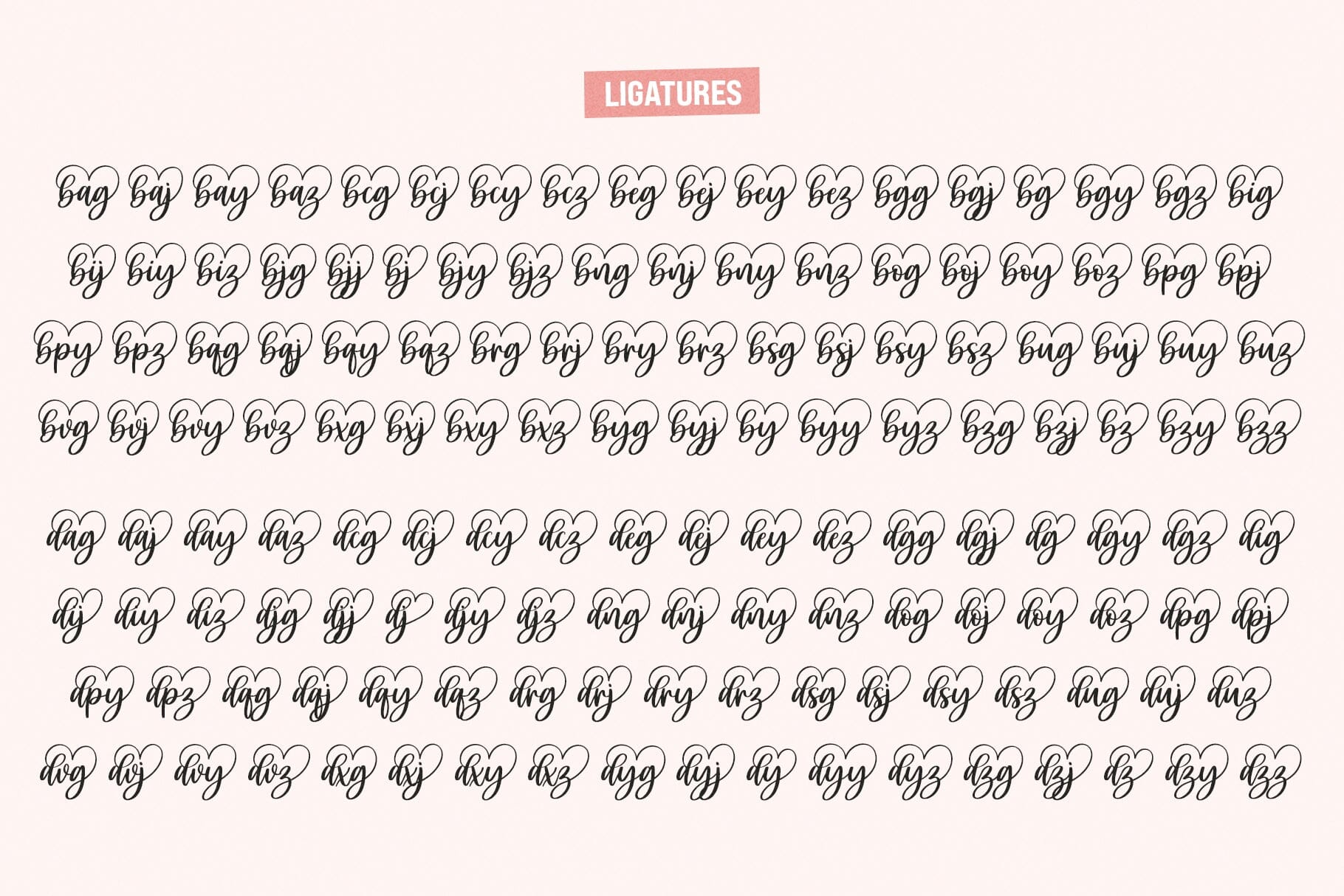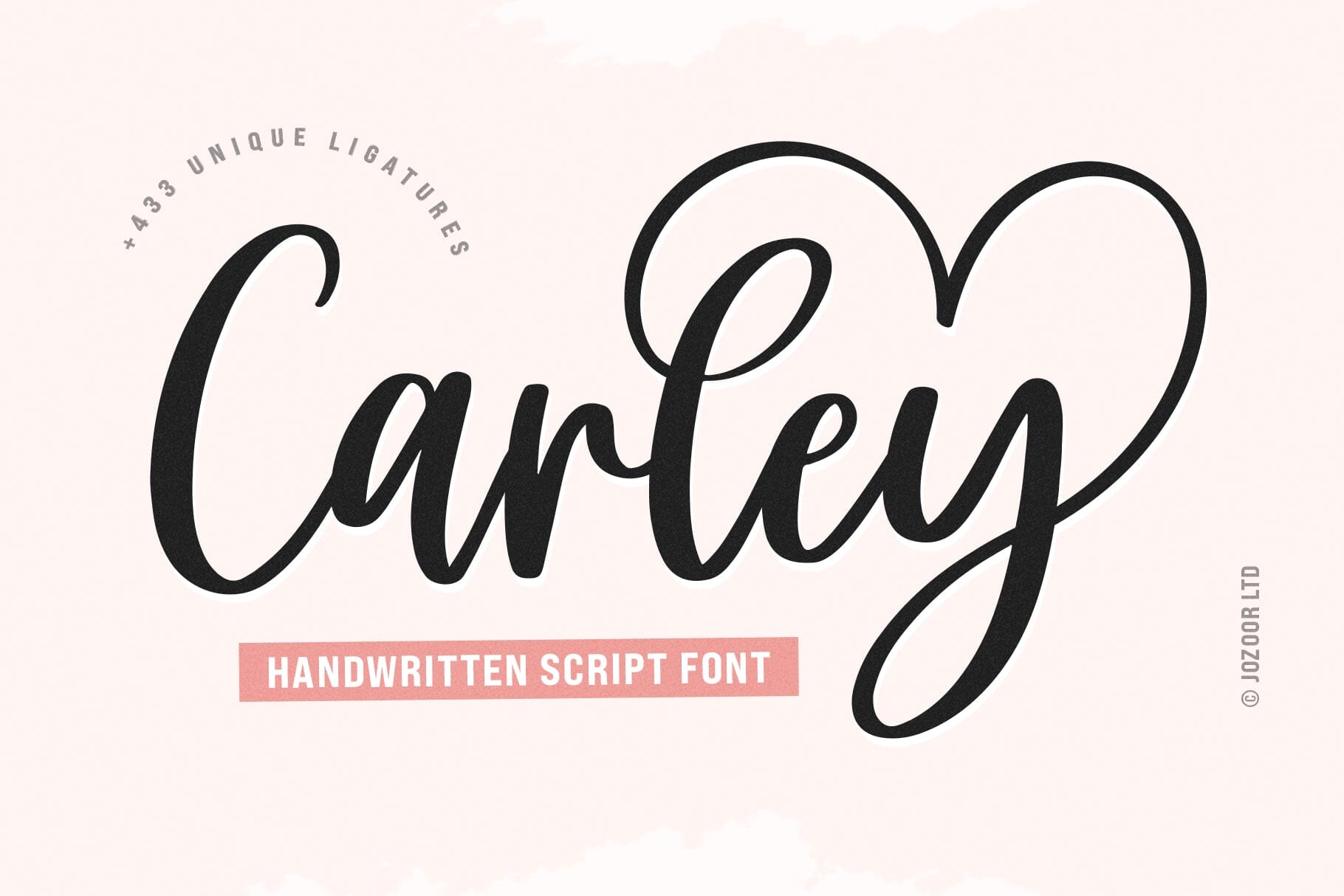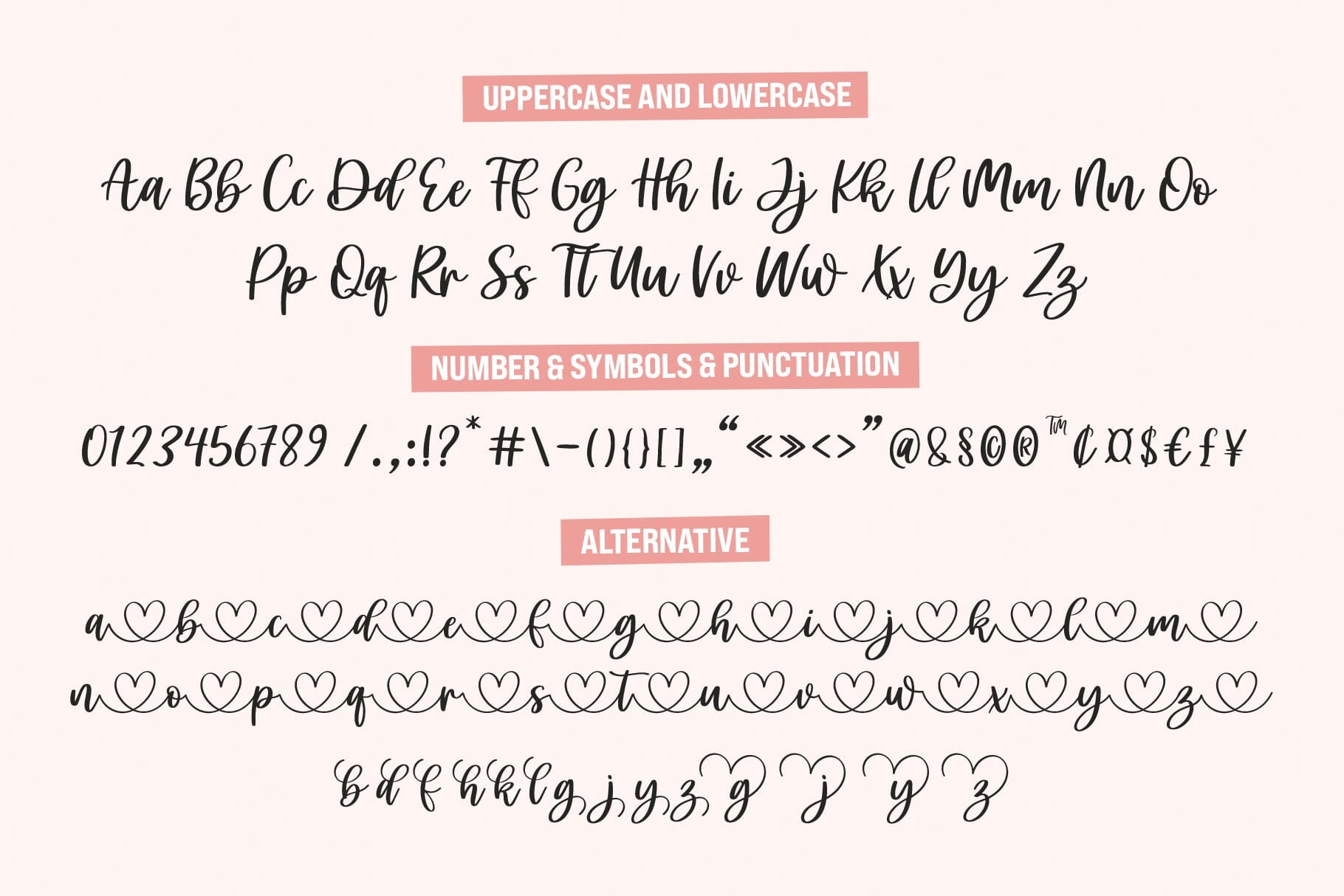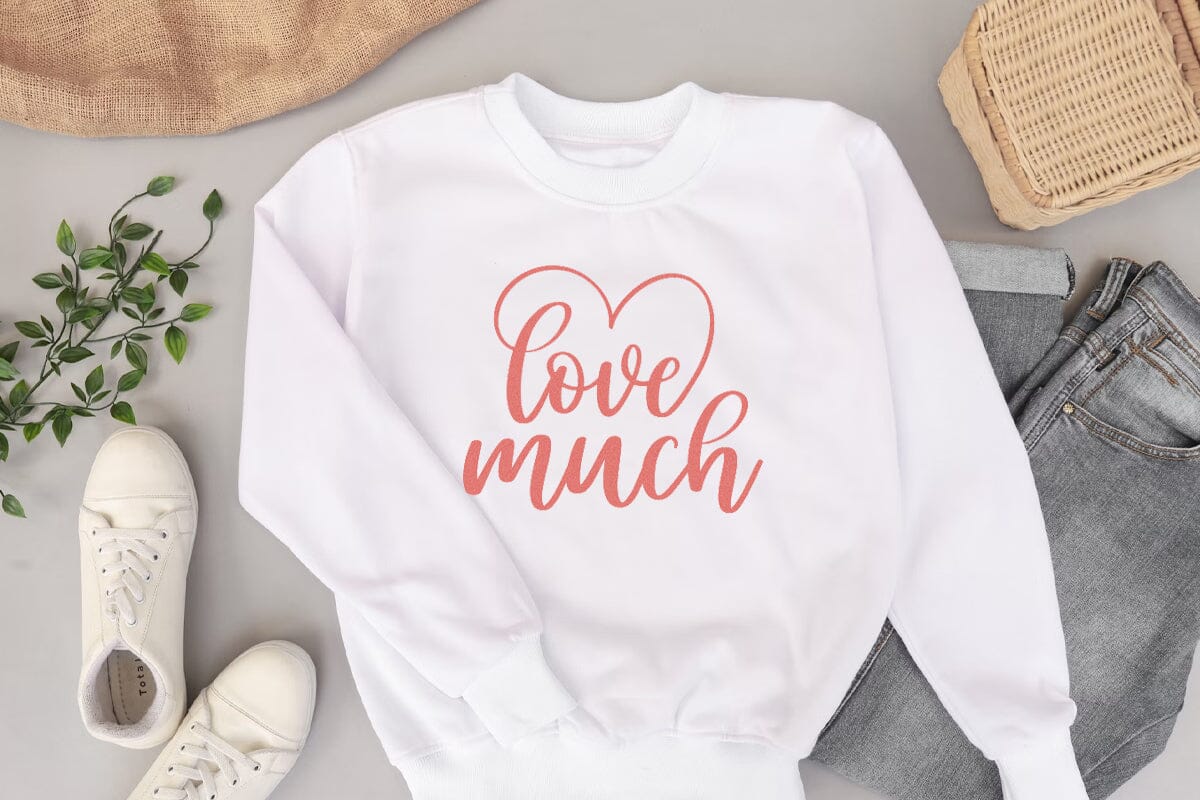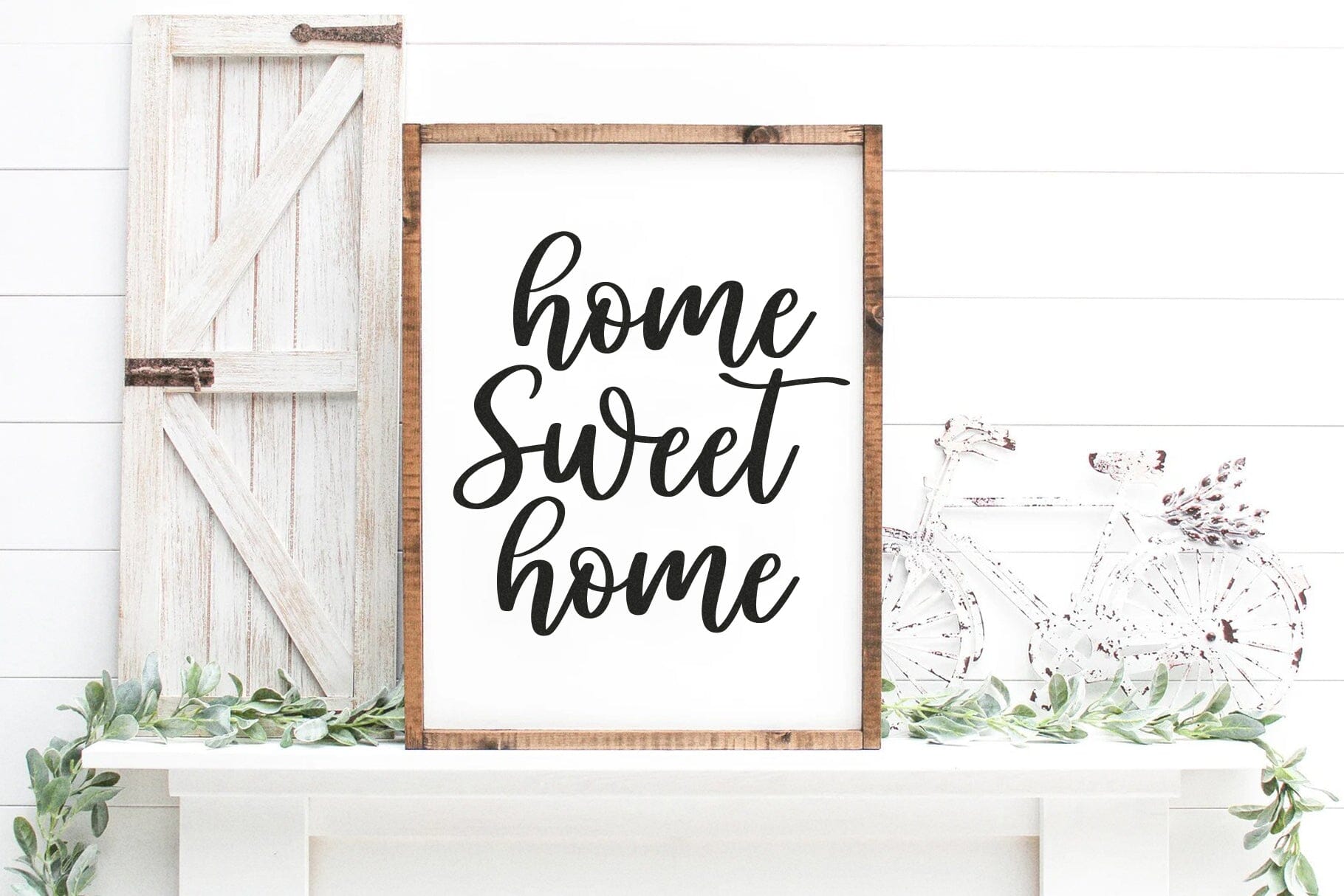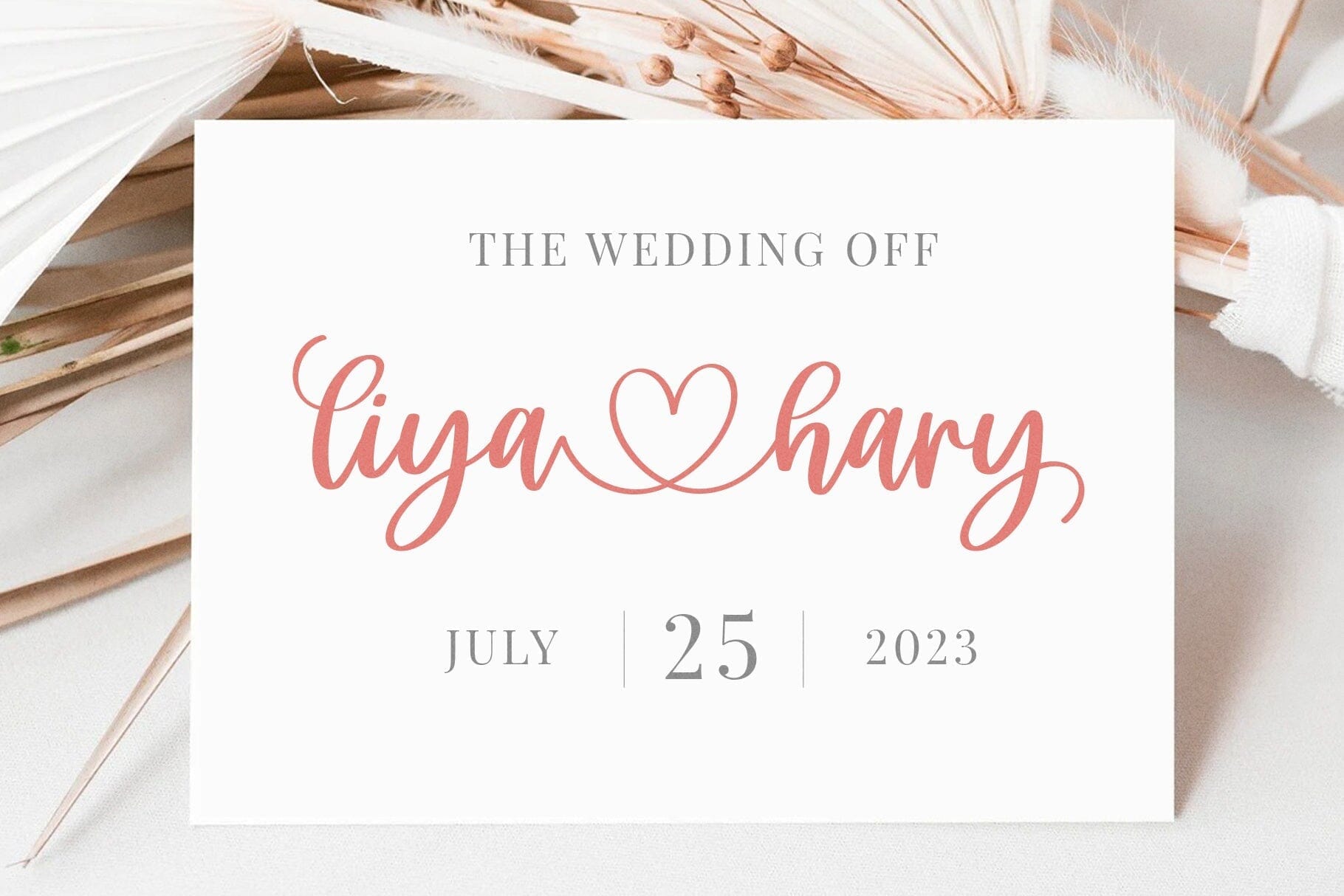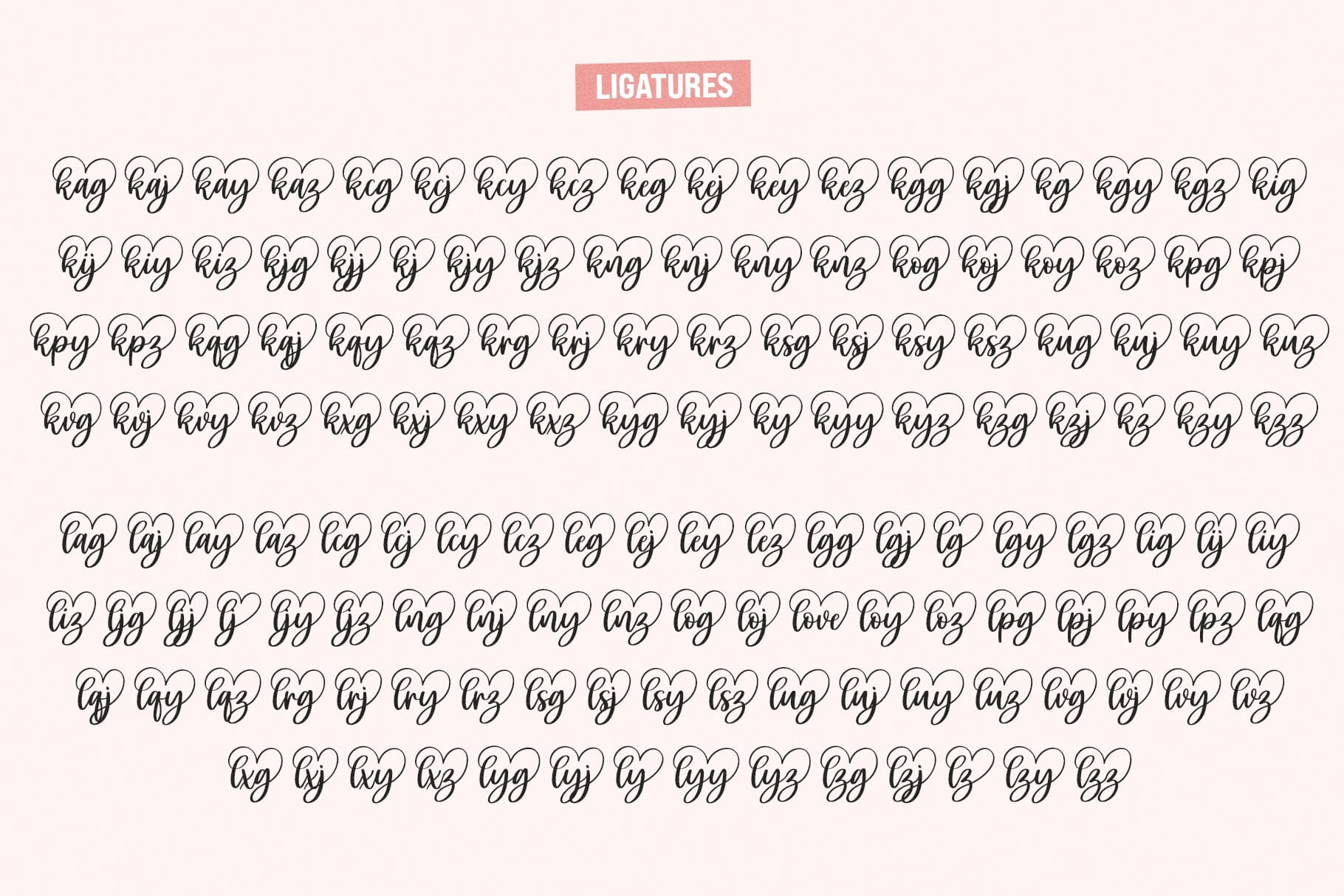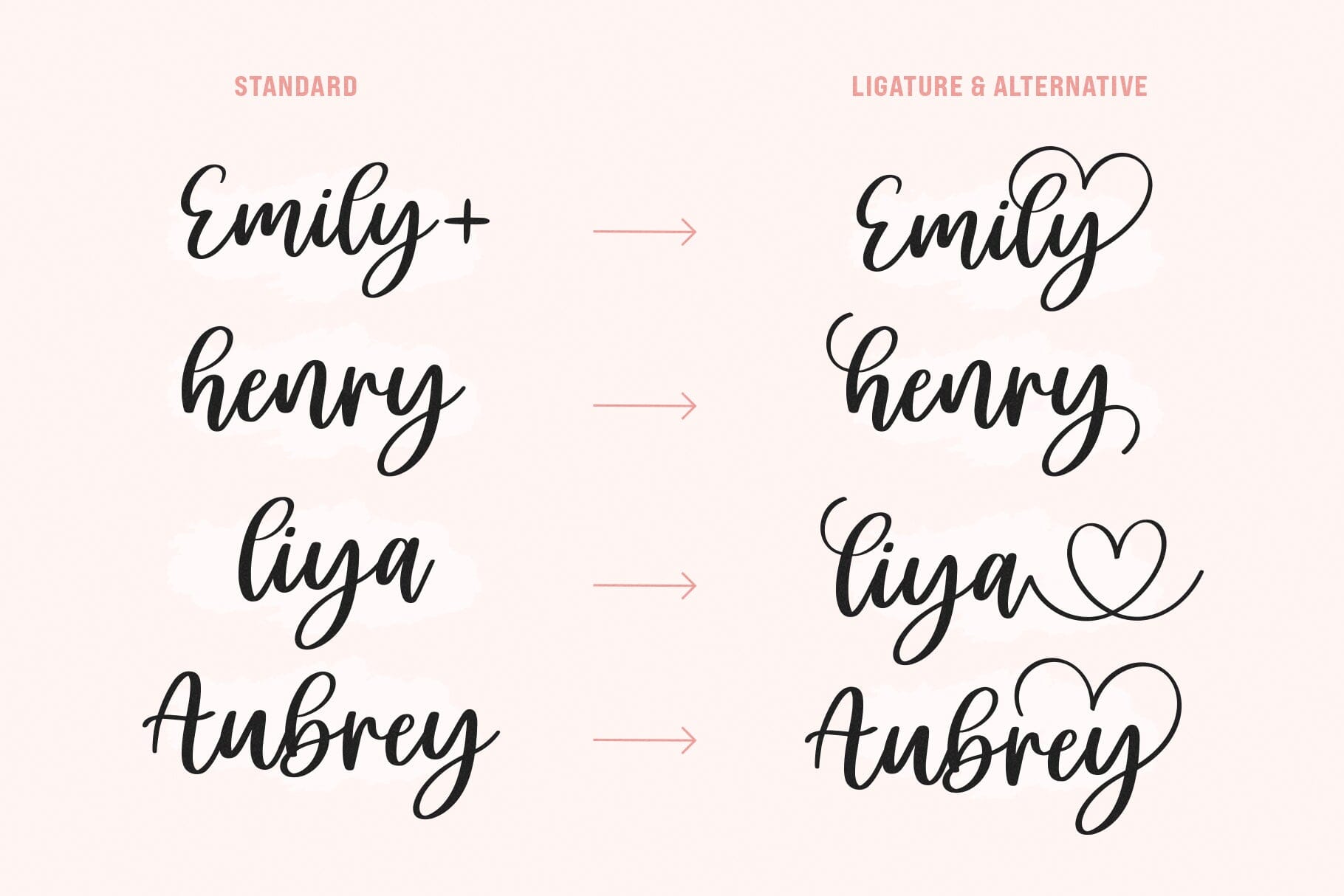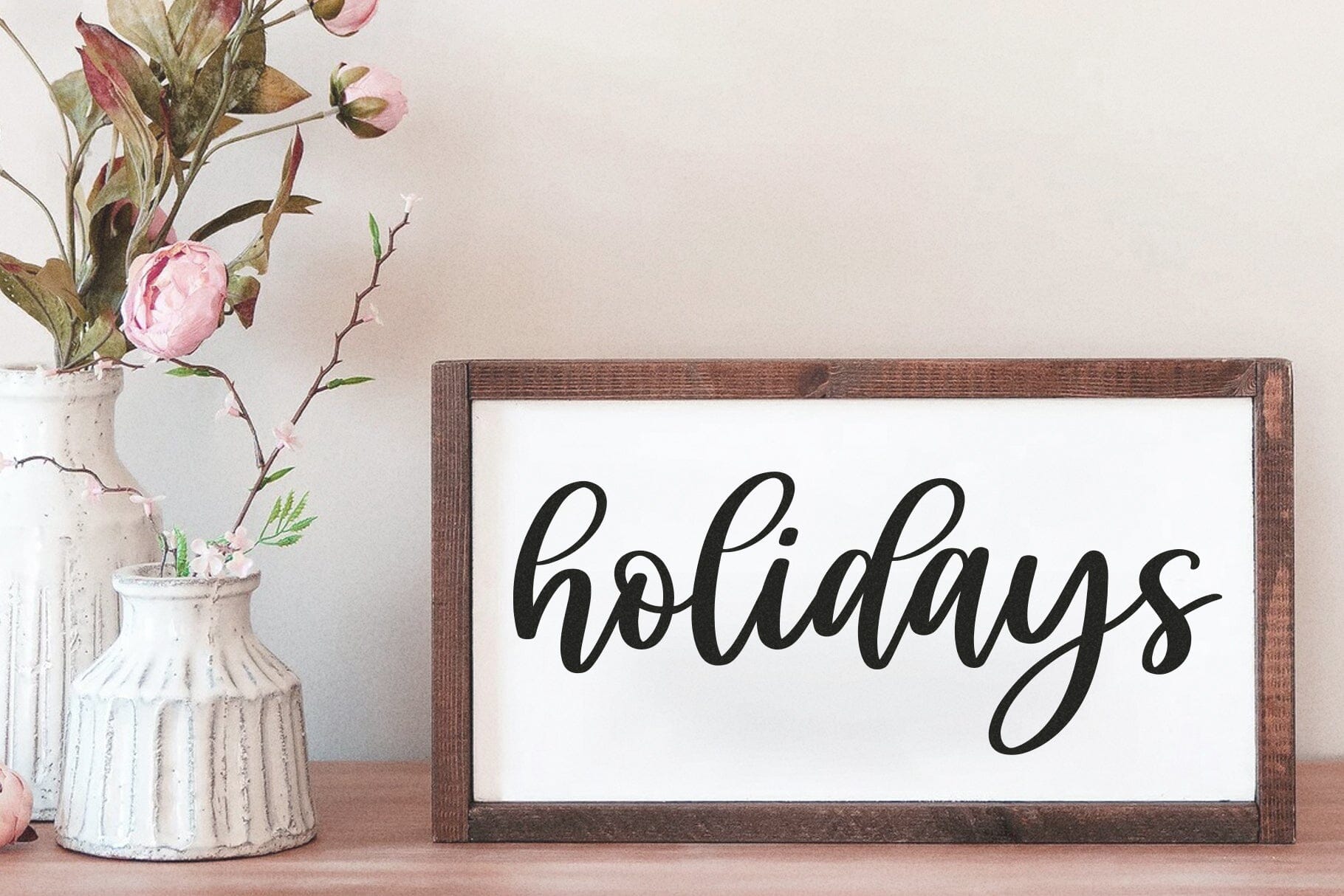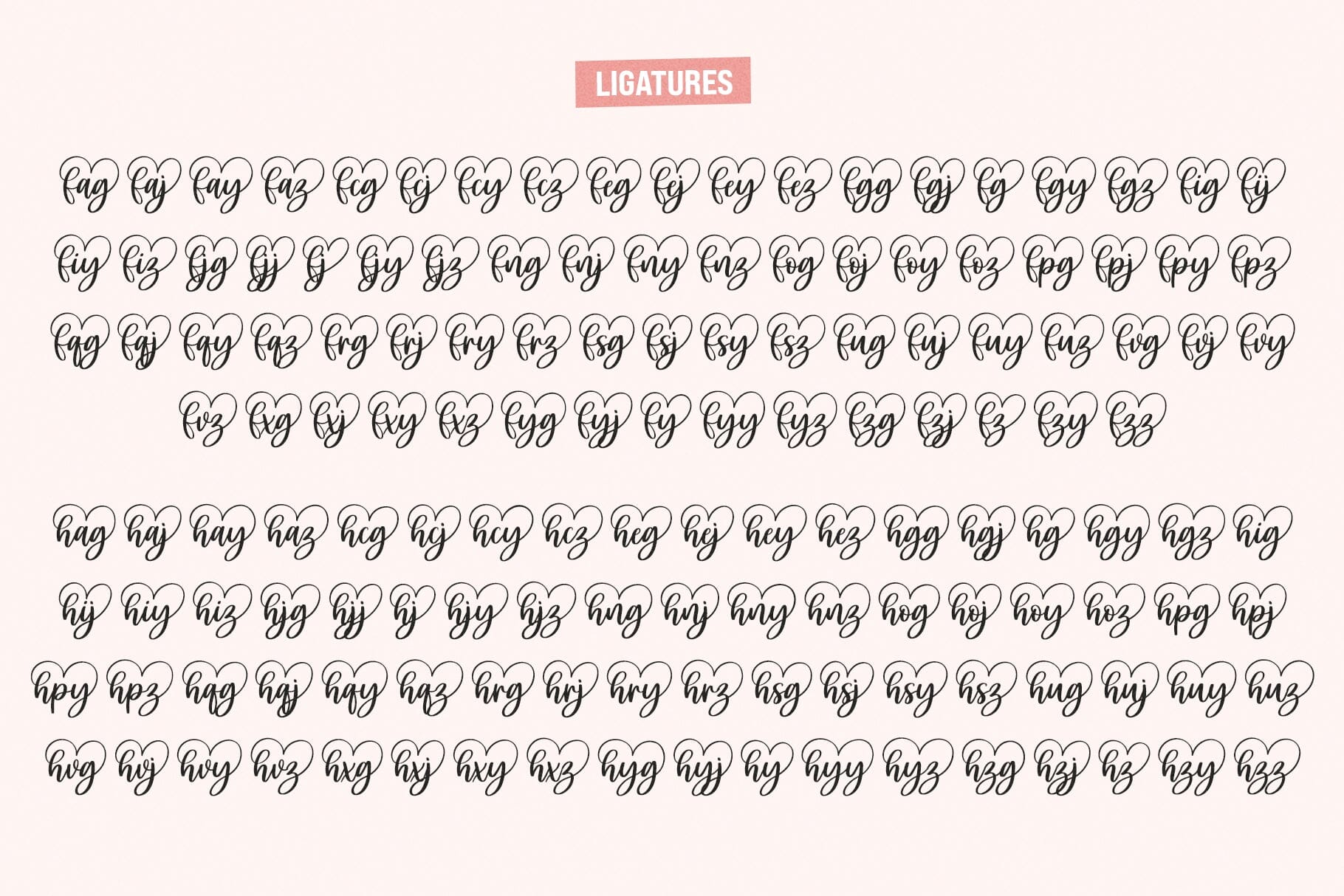
Carley – Lovely heart Script Font
About Carley – Lovely heart Script Font
Carley is a lovely heart script font for wedding invitations, save the date cards, fine art papery, feminine branding, personal gift cards other romantic projects. It has beautiful and well-balanced characters and as a result, it matches a wide pool of designs. You will get: OTF Font File. TTF Font File. SVG Font Files. User’s Guide PDF file. Hope you enjoy, and happy designing 🙂 ♥ JOZOOR